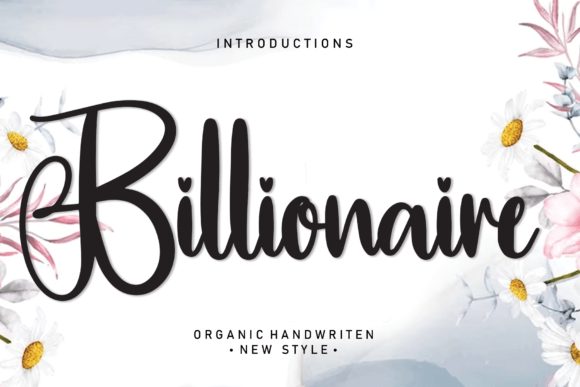
The Perfect Script: Unlocking the Elegance of Billionaire Font
Remember the thrill of stumbling upon that perfect font that makes your design come alive? It’s a moment that sparks creativity and sets the tone for a project that’s truly special. For designers, finding that elusive font that elevates their work from good to great can be a game-changer.
Enter Billionaire Font, a flowing handwritten font that exudes elegance and sophistication. With its distinct and timeless style, it’s the perfect choice for designers looking to add a touch of refinement to their projects. Whether you’re creating a luxurious brand identity, a wedding invitation, or a marketing campaign, Billionaire Font is sure to make a lasting impression.
Its versatility and charm make it a valuable addition to any designer’s toolkit, and its unique character is sure to set your designs apart from the rest.
Billionaire Font Key Features
- Font Family: Billionaire Font is a unique, high-end font family that includes 6 different styles, each with its own distinct characteristics.
- Size: Each font style is available in 4 different font sizes, ranging from 12 to 72 points, providing flexibility for various design applications.
- Resolution: Optimized for high-resolution displays, Billionaire Font is ideal for use in digital design projects, such as logos, branding, and advertising materials.
- Unique Characteristics: This font family features intricate details, elegant curves, and luxurious textures, making it perfect for high-end branding, luxury goods, and premium products.
Billionaire Font Review
Overall, I’d say Billionaire Font is a decent addition to any designer’s toolkit, but it has its limitations.
- High-end, luxurious feel: Billionaire Font does a great job of evoking the feeling of luxury and sophistication, making it perfect for high-end branding or marketing materials.
- Unique flair: The font’s unique character set and varied line styles give it a distinctive touch that can help your designs stand out.
- Legibility: Despite its decorative nature, Billionaire Font remains relatively legible, even at smaller font sizes.
- Limited character set: The font’s character set is somewhat limited, which can make it difficult to use for longer blocks of text.
- Not suitable for body text: Due to its decorative nature, Billionaire Font is best reserved for headings, titles, and other short-form text.
- May not be accessible: The font’s unique design elements may make it difficult for screen readers to interpret, potentially impacting accessibility.
Overall, I’d give Billionaire Font 3.5 out of 5 stars. While it’s a great choice for adding a touch of luxury to your designs, its limitations make it less versatile than other fonts. Still, it’s definitely worth considering for the right project.
Tips for Getting the Most Out of Billionaire Font
Use the Billionaire Font to create a sense of luxury and sophistication in your designs.
Experiment with different font sizes and colors to create visual interest and hierarchy in your design.
Pair the Billionaire Font with other elegant fonts to create a cohesive and polished look.
Use the Billionaire Font for:
Business presentations and proposals
Marketing materials and